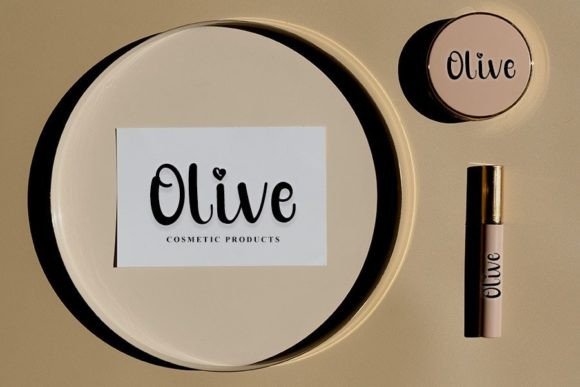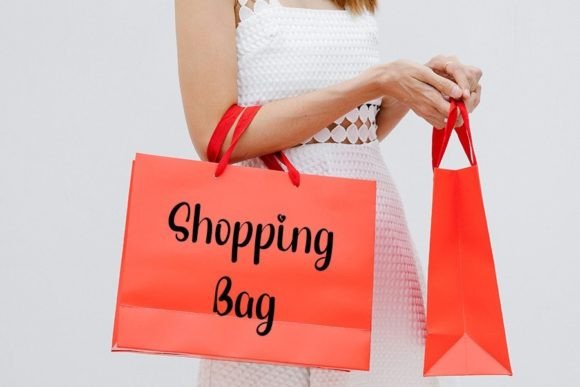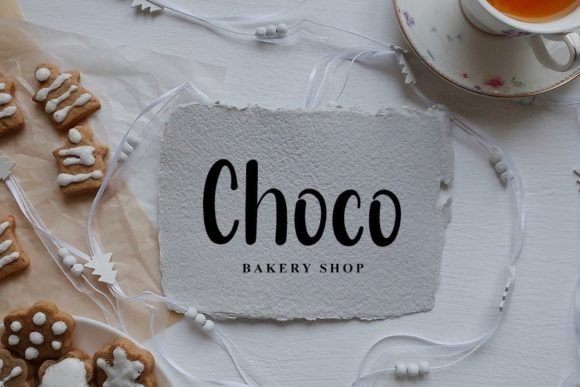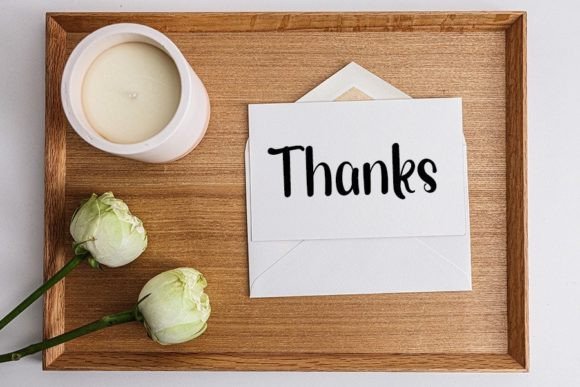
Discover the Elegance of Derive Font: Elevate Your Designs with Timeless Style
Are you on the hunt for a font that adds a touch of elegance and sophistication to your designs? Look no further than Derive Font. This stunning handwritten font is crafted with precision and care, boasting an elegant touch that will make your projects stand out from the crowd. In this article, we’ll dive into the world of Derive Font, exploring its unique features, and how you can harness its power to create breathtaking designs that leave a lasting impression.
The Distinctive Charm of Derive Font
Derive Font is a masterpiece of typographic design, characterized by its incredibly distinct and timeless style. Each letter is carefully crafted to exude a sense of refinement and luxury, making it perfect for designers and crafters who strive for excellence. The font’s elegant touch is unmistakable, adding a level of sophistication to any project it’s used in. Whether you’re working on a branding campaign, a website, or a craft project, Derive Font is sure to impress.
Key Features of Derive Font
• Handwritten with love: Derive Font is a handwritten font, infused with the warmth and personality of human touch. Its unique character makes it perfect for projects that require a personal and emotive feel.
• Elegant and refined: The font’s elegant touch is evident in every letter, making it ideal for designs that demand sophistication and luxury.
• Timeless style: Derive Font’s classic style ensures it will remain relevant for years to come, making it a valuable addition to your font library.
• Versatile: This font is perfect for a wide range of projects, from branding and advertising to crafting and DIY.
How to Use Derive Font in Your Designs
Derive Font is incredibly versatile, making it suitable for a variety of design applications. Here are a few ideas to get you started:
• Branding and logos: Use Derive Font to create a lasting impression with your brand identity. Its elegant touch is perfect for luxury brands, boutiques, and high-end services.
• Web design: Add a touch of sophistication to your website with Derive Font. Its readability and style make it perfect for headings, titles, and body text.
• Crafting and DIY: Derive Font is a great choice for crafters and DIY enthusiasts. Use it to add a personal touch to your projects, such as handmade cards, gift tags, and more.
Tips for Getting the Most Out of Derive Font
To maximize the impact of Derive Font, here are a few tips to keep in mind:
• Experiment with sizes: Derive Font looks great in various sizes, from large headings to smaller body text. Experiment with different sizes to find the perfect balance for your design.
• Pair it with other fonts: Combine Derive Font with other fonts to create a unique and visually appealing design. Its elegance pairs well with sans-serif fonts, creating a beautiful contrast.
• Pay attention to spacing: Make sure to adjust the spacing between letters and lines to ensure optimal readability and aesthetics.
Derive Font is a stunning handwritten font that will elevate your designs to new heights. Its elegant touch, timeless style, and versatility make it a valuable addition to any designer’s or crafter’s toolkit. With its wide range of applications and ease of use, Derive Font is sure to become a favorite in your font library. So why wait? Fall in love with Derive Font and create spectacular designs that leave a lasting impression!